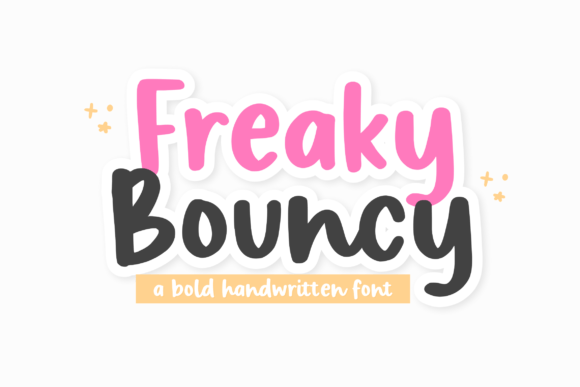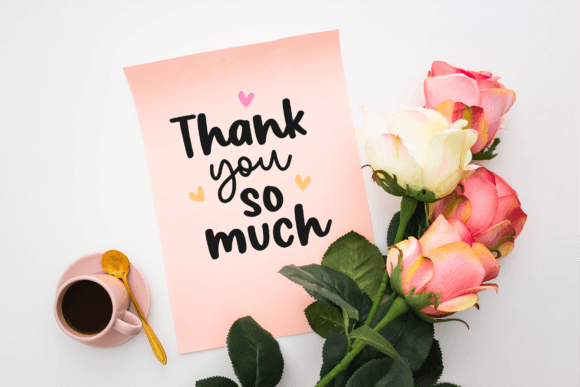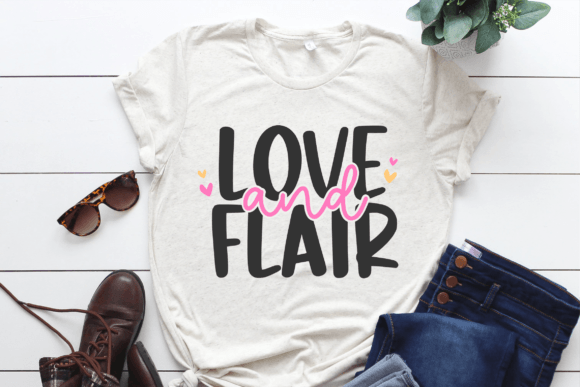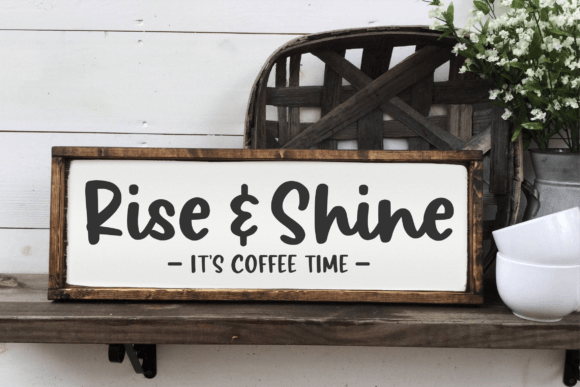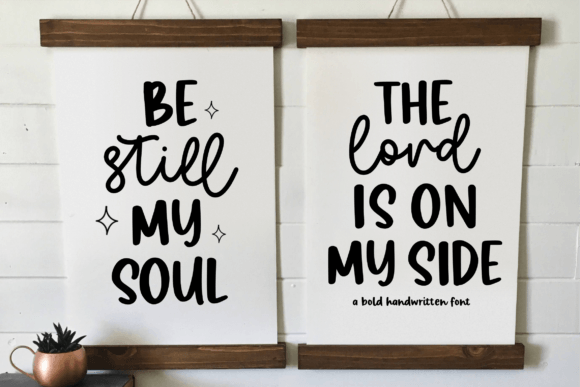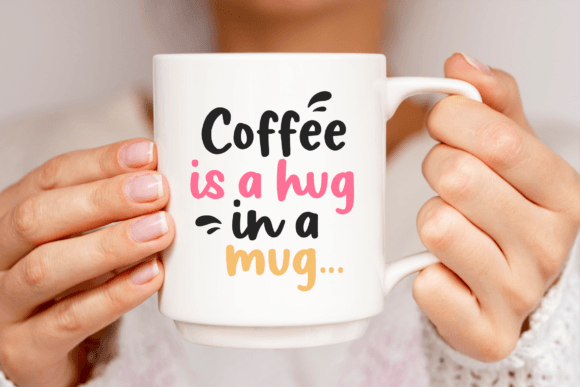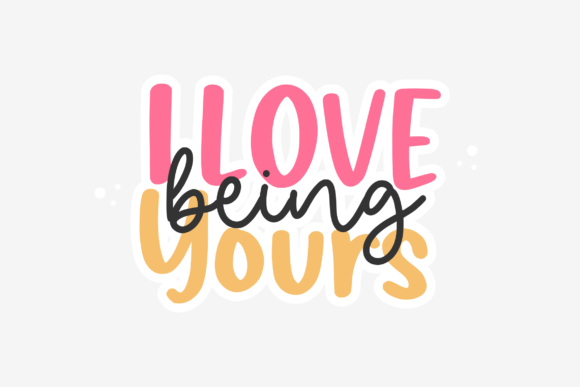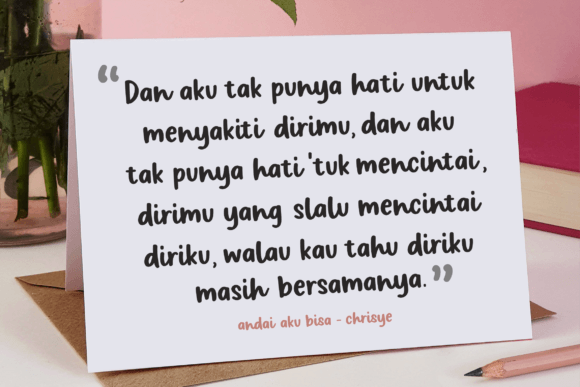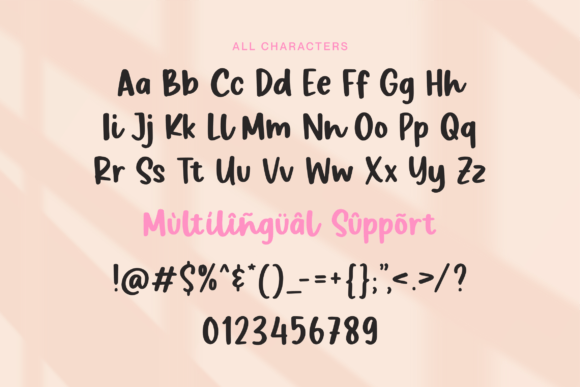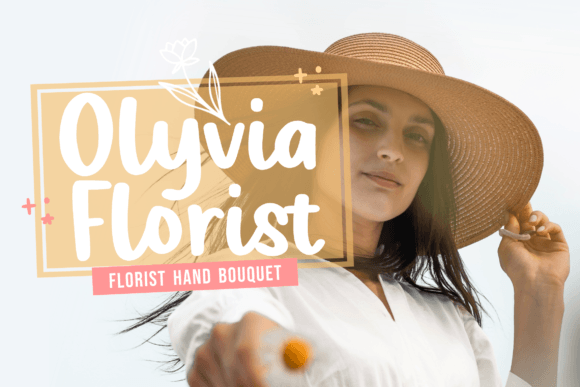
Freaky Bouncy Font
About Freaky Bouncy Font
“Freaky Bouncy” is a bold and expressive font that captivates with its thick and solid lines, ensuring easy readability without overwhelming the eyes. This font strikes a balance between playfulness and professionalism, making it a versatile choice for a wide range of design projects.
The robust nature of “Freaky Bouncy” lends it a confident and impactful presence. Its bold strokes command attention, making it particularly suitable for projects that demand a strong and assertive typographic statement. The conservative bends in the letterforms contribute to a harmonious overall aesthetic, ensuring that the font remains visually pleasing.
The versatility of “Freaky Bouncy” shines through in its ability to adapt to various design contexts. From playful and creative projects to more professional and structured endeavors, this font seamlessly fuses both elements. Its expressive nature adds character to your text without sacrificing the readability that is essential for effective communication.
Whether you’re working on posters, headlines, branding, or any design project that requires a bold and balanced font, “Freaky Bouncy” is a reliable choice. Its fusion of playful and professional qualities makes it suitable for a diverse array of applications, giving your designs a unique and dynamic edge.
In summary, “Freaky Bouncy” is more than just a font; it’s a design powerhouse that effortlessly blends boldness with balance. Explore the versatility of this font in your creative projects, and witness how it can infuse your designs with a captivating and expressive energy.